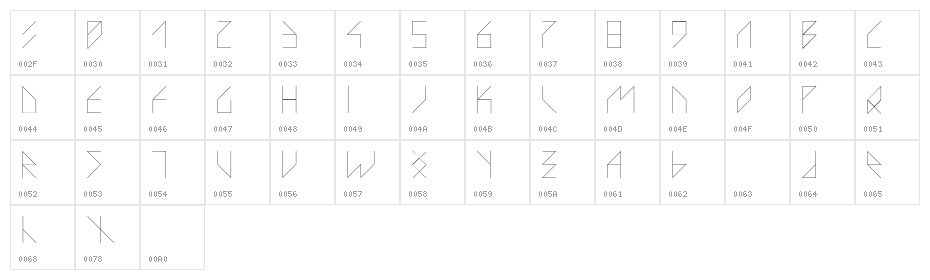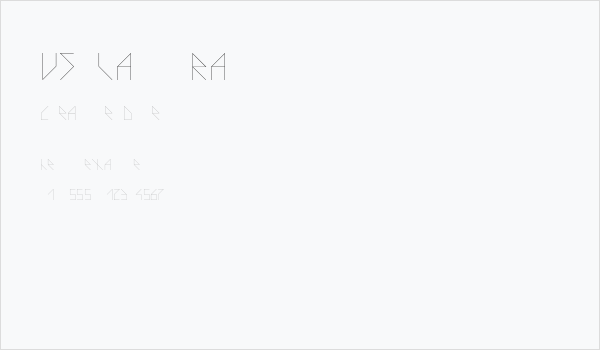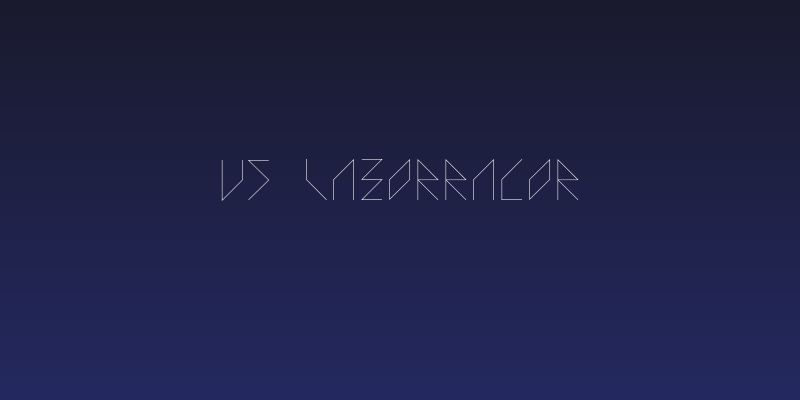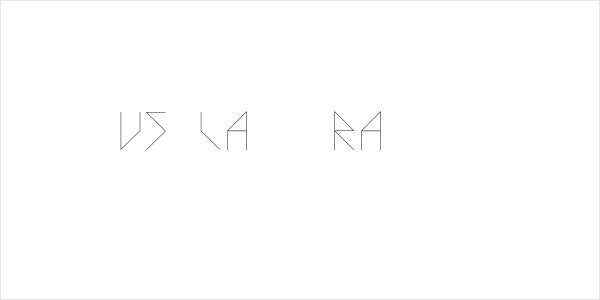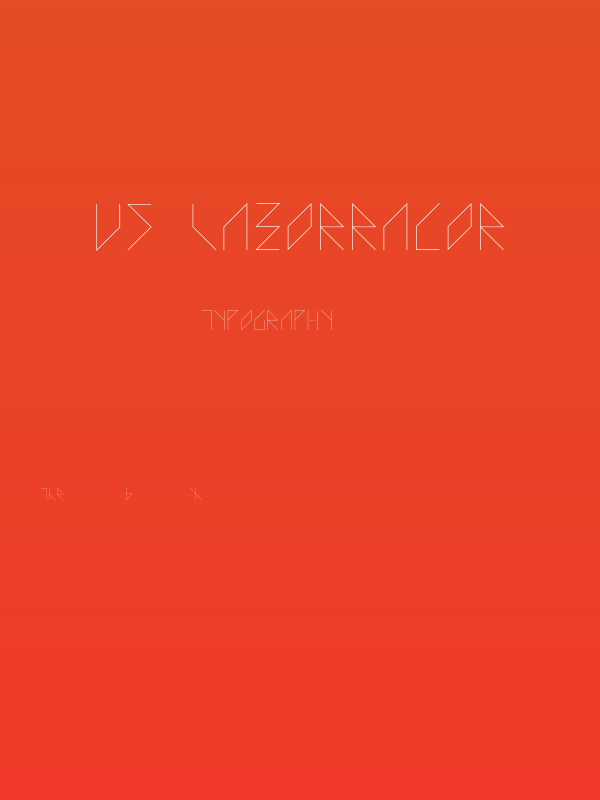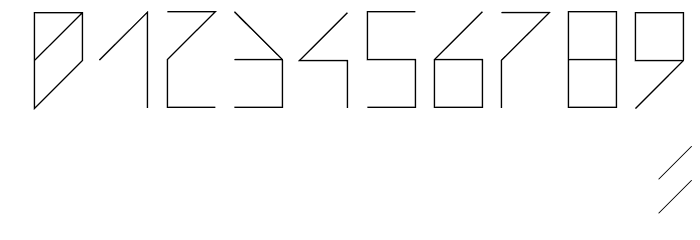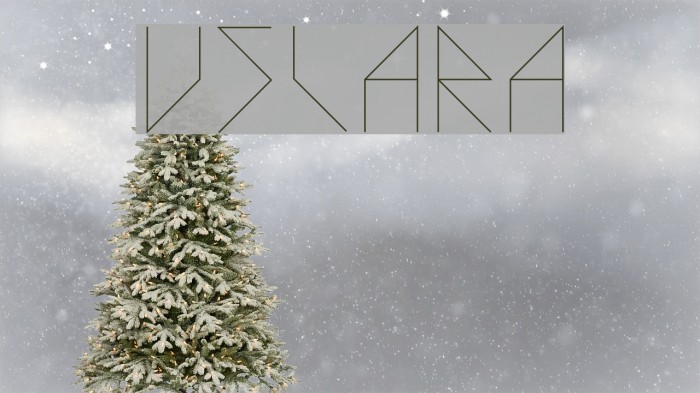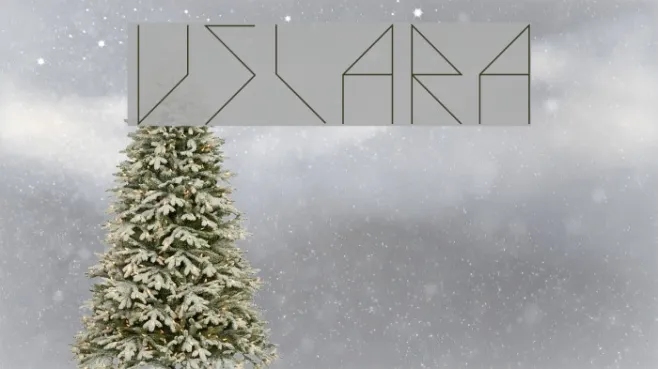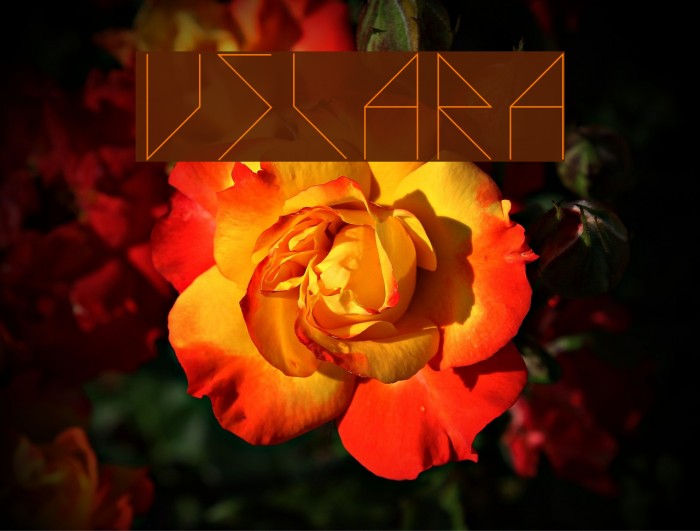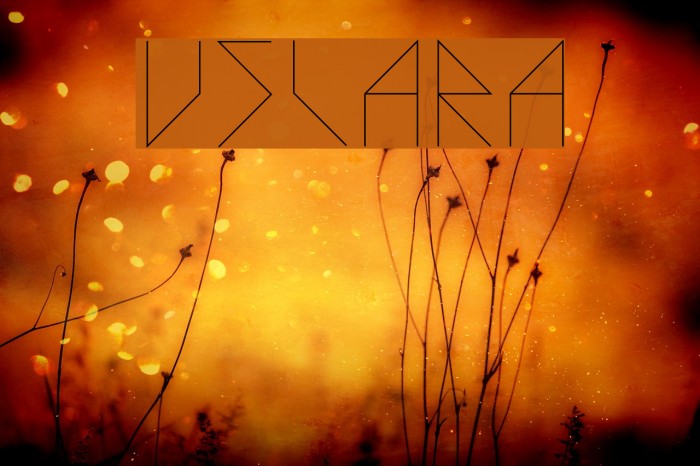
VS_LazorRacor Font
VS_LazorRacor Description
This font features a highly geometric and angular design, characterized by sharp lines and a minimalist aesthetic. Each character is constructed using straight lines and acute angles, giving it a futuristic and technical appearance. The uppercase letters are particularly striking, with a consistent use of diagonal lines that create a sense of movement and dynamism. The lowercase letters maintain the same angular style, ensuring uniformity across the typeface. Numbers and special characters follow the same design principles, making the font cohesive and visually appealing. The overall style is modern and avant-garde, suitable for projects that require a bold and distinctive look.
| Proposed Projects | Ideal for tech-related branding, sci-fi themed designs, modern art posters, and digital interfaces. |